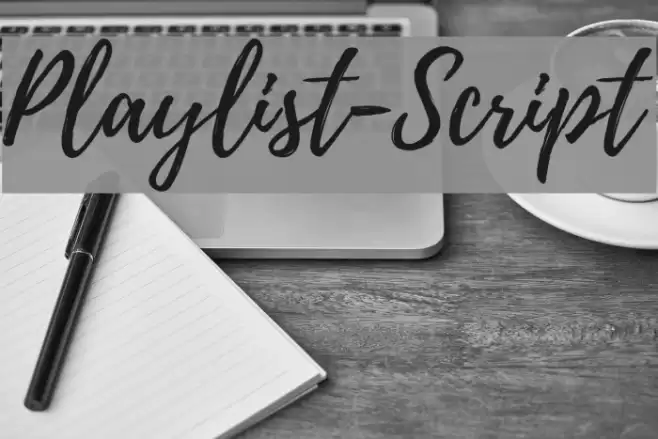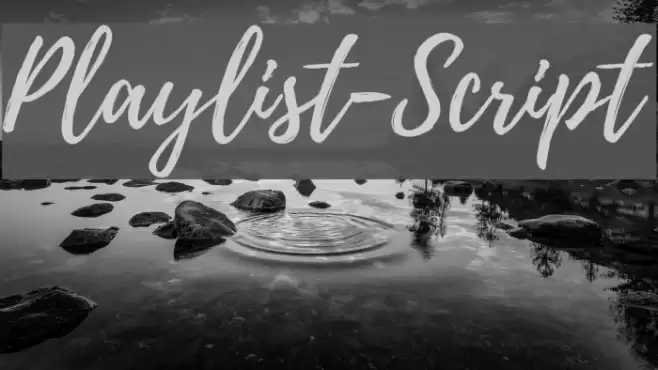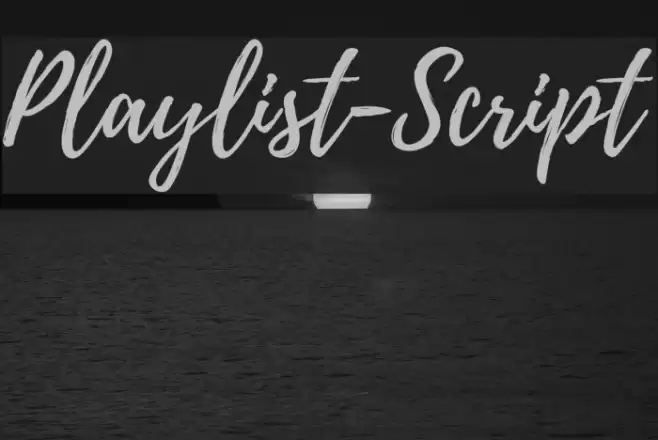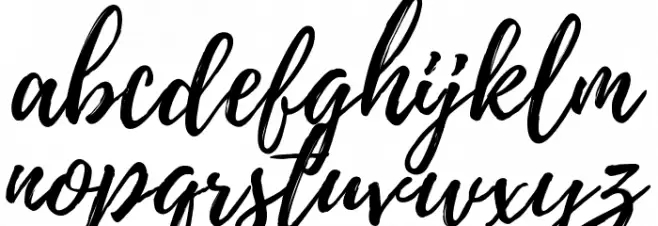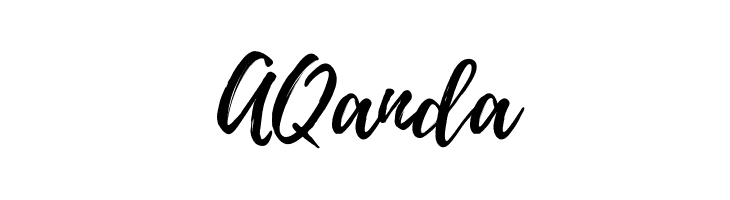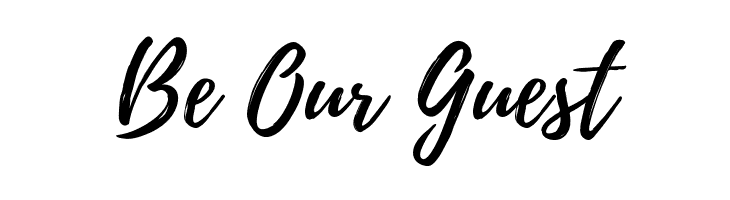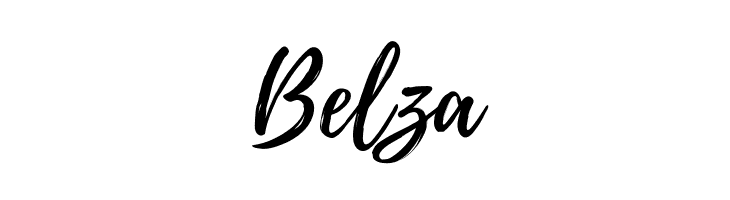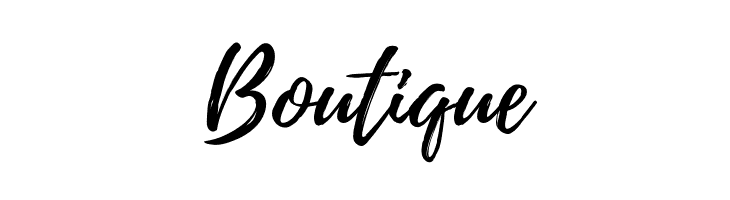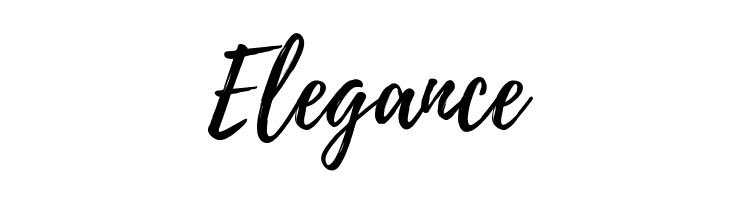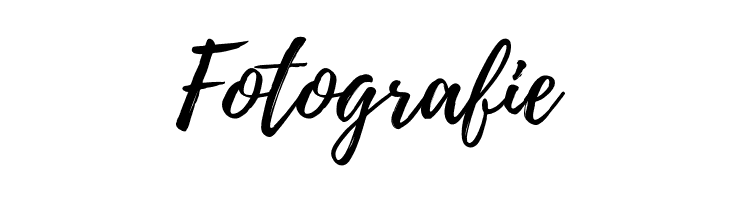
Playlist-Script Font
Playlist-Script Description
This font exudes a lively and energetic script style, characterized by its fluid, hand-drawn appearance. The letters are connected in a cursive fashion, with a playful yet elegant flair. The strokes are bold and confident, with a slight slant that adds to its dynamic nature. The uppercase letters are tall and commanding, while the lowercase letters maintain a consistent flow, enhancing readability. The numerals and special characters are crafted with the same attention to detail, ensuring a cohesive look across all elements. This font is perfect for adding a personal touch to any design, making it ideal for creative projects that require a handwritten feel.
A lively and energetic script font with a hand-drawn, cursive style from Handwritten fonts.
- Proposed Projects: Ideal for wedding invitations, greeting cards, branding, and social media graphics.
- Use Case: Logos, Headlines, Invitations